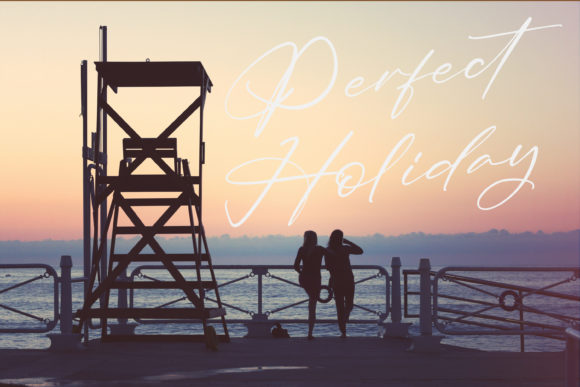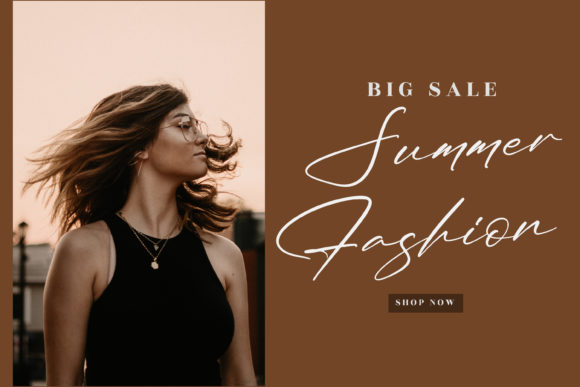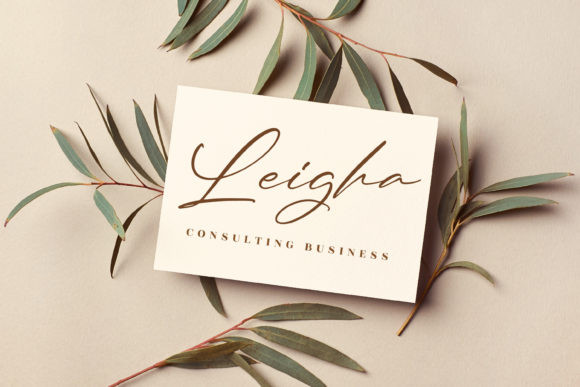
Introduction to Mantilda & Briant Font
Mantilda & Briant is a lovely script font featuring charming, playful characters that seem to dance along the baseline.
Mantilda & Briant is PUA encoded which means you can access all glyphs and swashes with ease .
Key Features of Mantilda & Briant Font